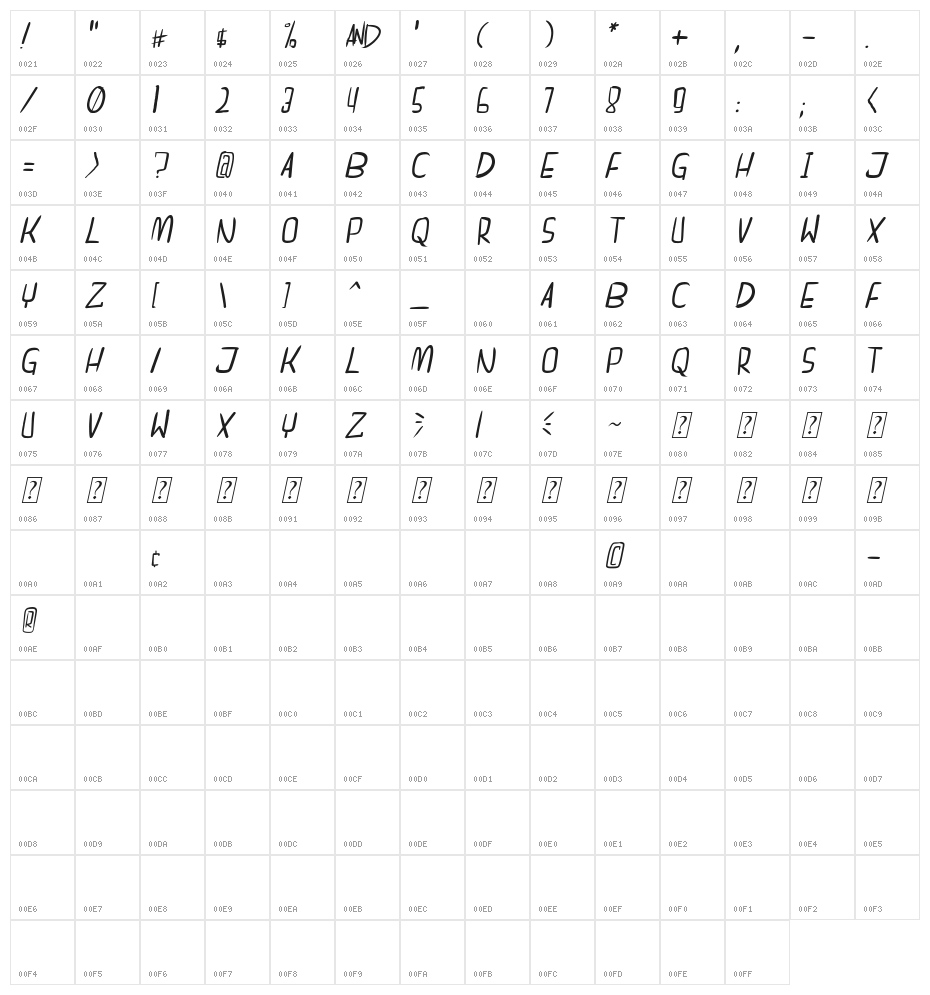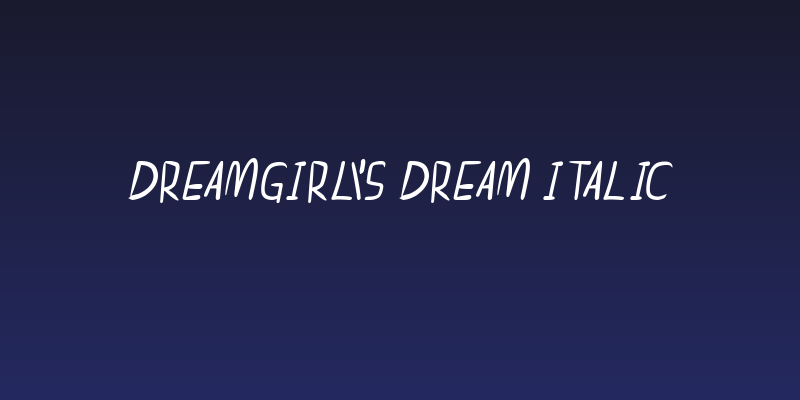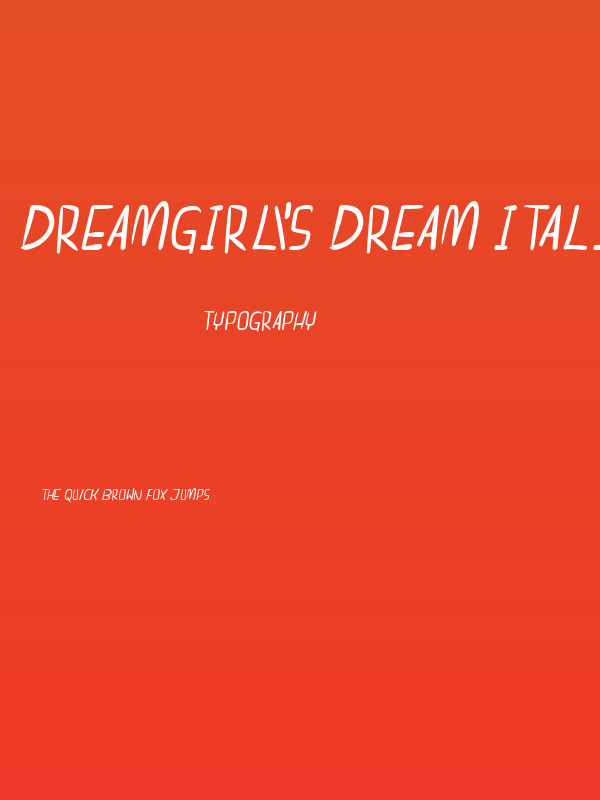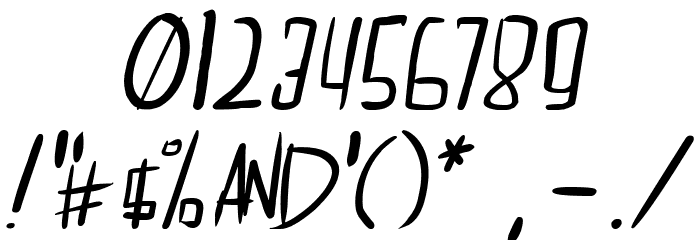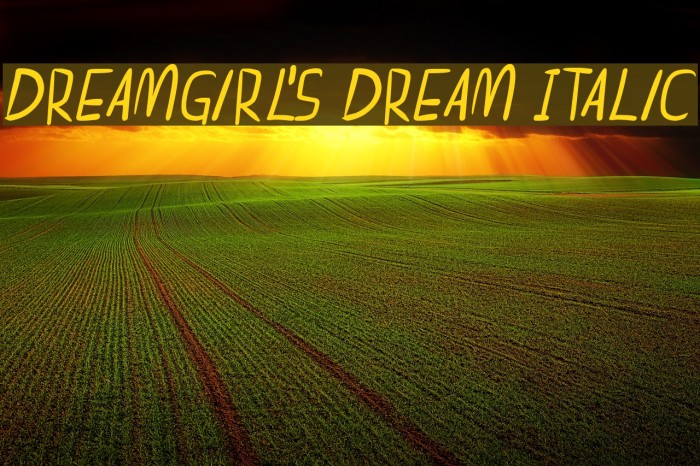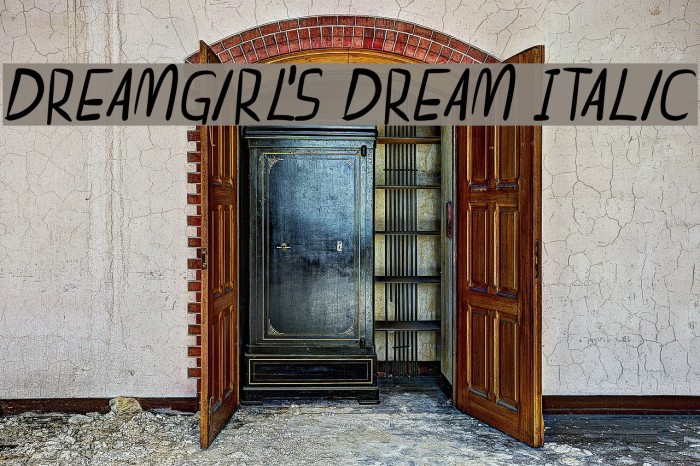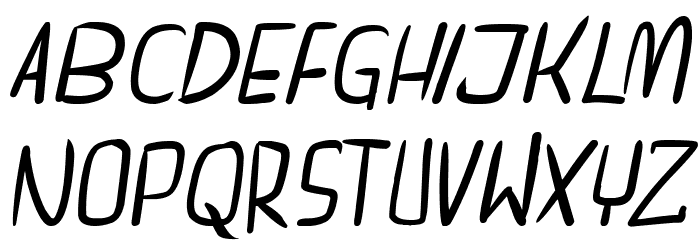
dreamgirl's dream Italic Font
dreamgirl's dream Italic Description
This font features a dynamic and fluid style with a handwritten appearance. The letters are slightly slanted, giving it an italicized look that adds a sense of movement and energy. The strokes are smooth and consistent, with a medium thickness that maintains readability while conveying a casual and approachable feel. The characters are well-spaced, ensuring clarity and legibility. This font includes a full set of uppercase and lowercase letters, numerals, and a variety of special characters, making it versatile for various design needs.
| Overall Style | Casual |
| Use Case | Headlines, Logos, Invitations |
| Proposed Projects | Ideal for creative projects such as greeting cards, invitations, posters, and branding materials that require a personal touch. |